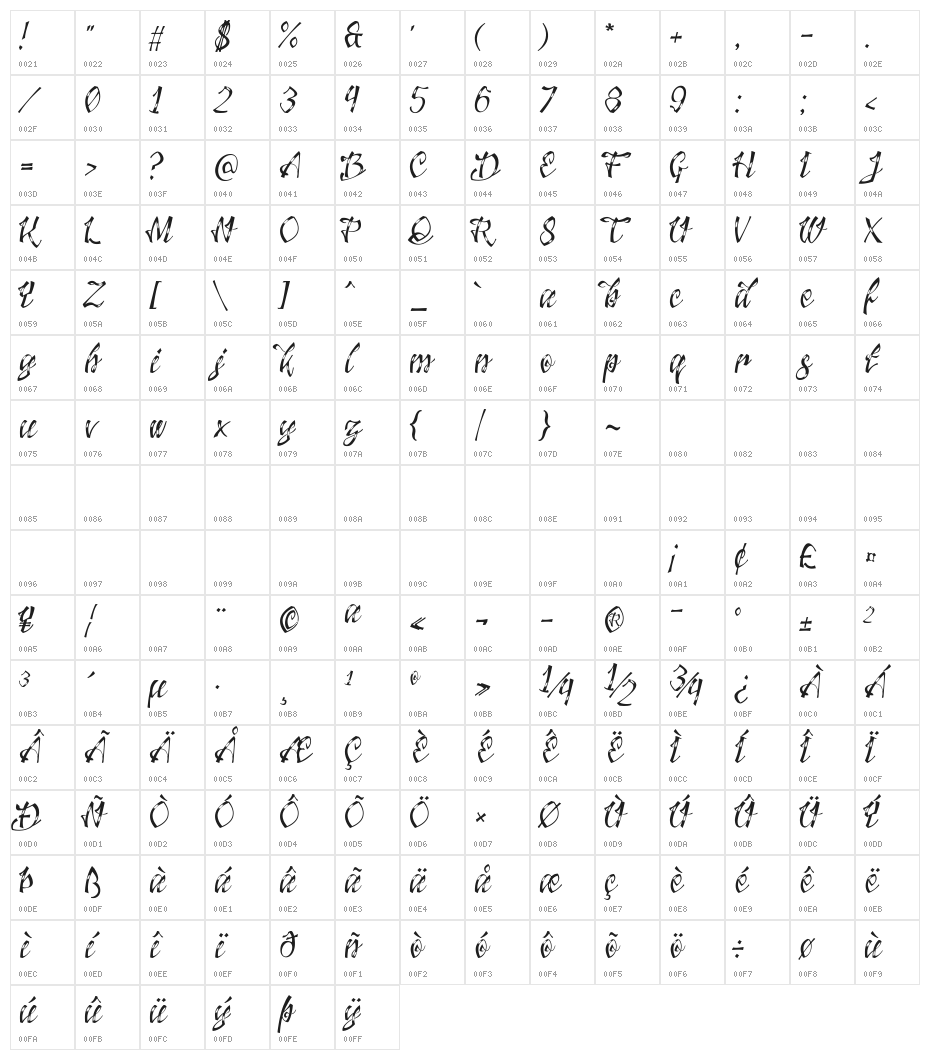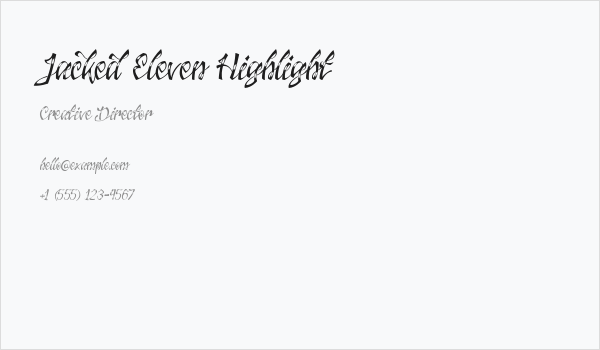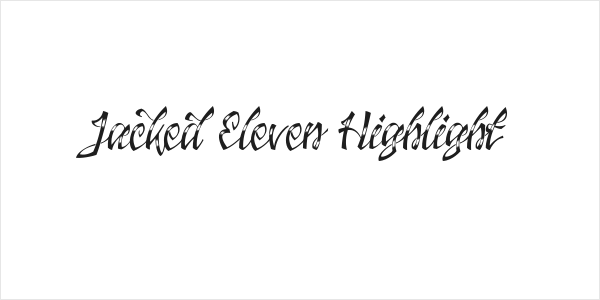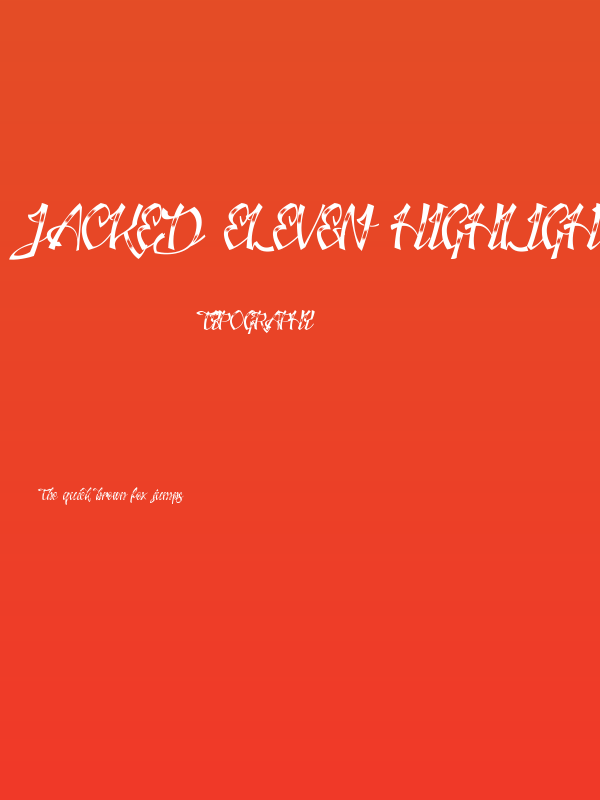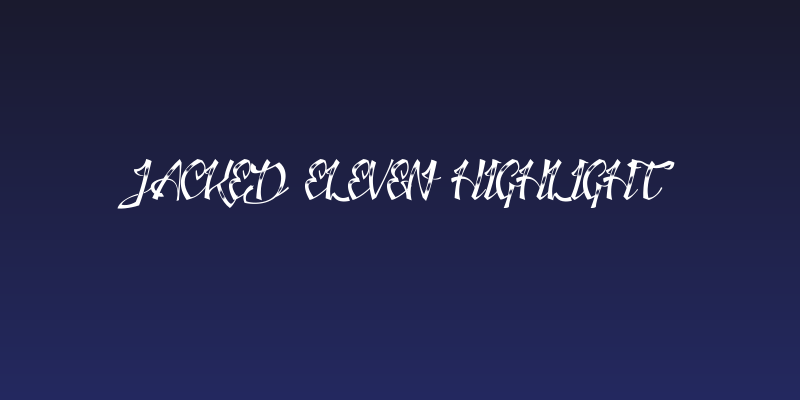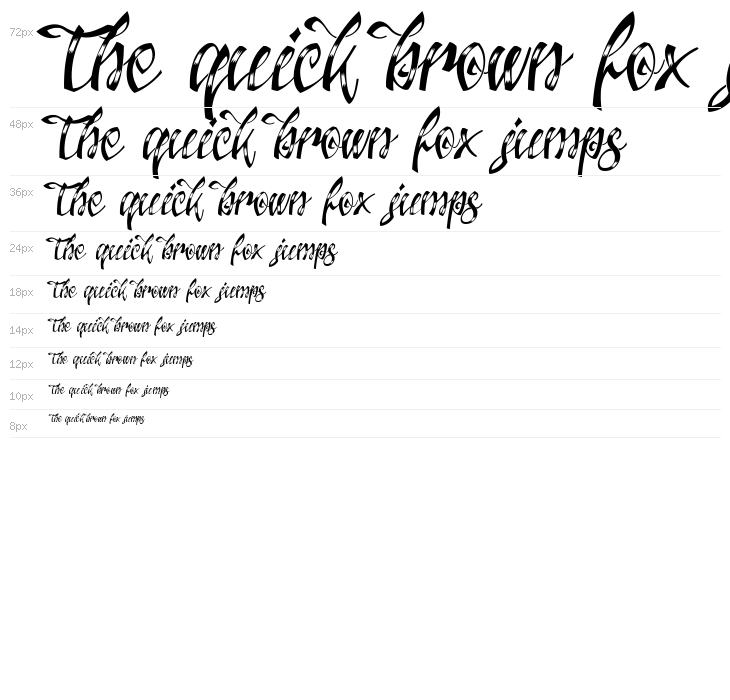
Jacked Eleven Highlight Font
Jacked Eleven Highlight Description
This font features a dynamic and energetic script style with a bold, brush-like appearance. The characters are slanted, giving a sense of motion and fluidity. The strokes are thick and expressive, with a high contrast between thick and thin lines, adding to the dramatic flair. The uppercase and lowercase letters maintain a consistent style, with intricate loops and swashes that enhance the overall aesthetic. Numbers and special characters are equally stylized, ensuring a cohesive look across all text elements. This font is ideal for making a bold statement, with its eye-catching design and artistic flair.
| Proposed Projects | Ideal for branding, posters, invitations, and any project requiring a bold, artistic touch. |